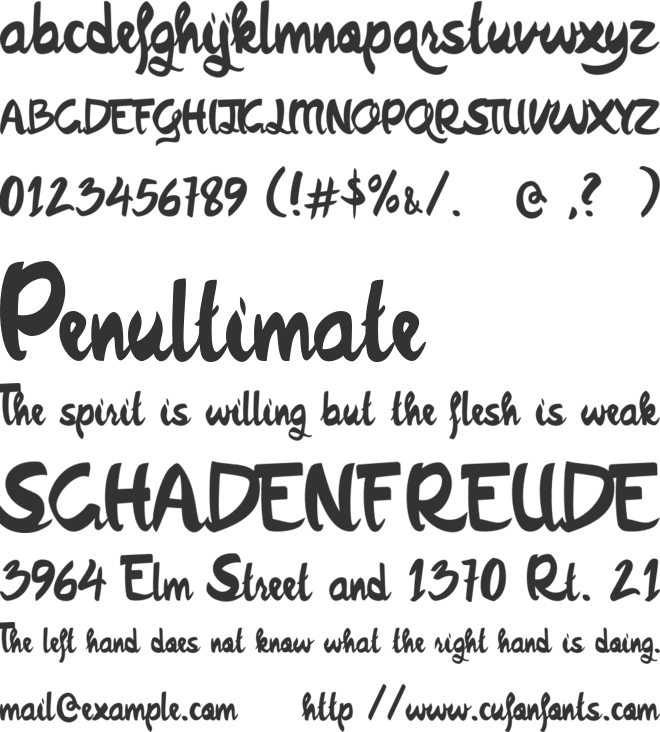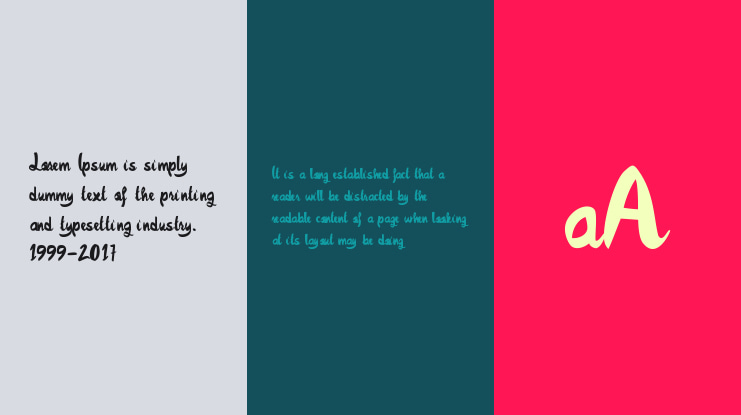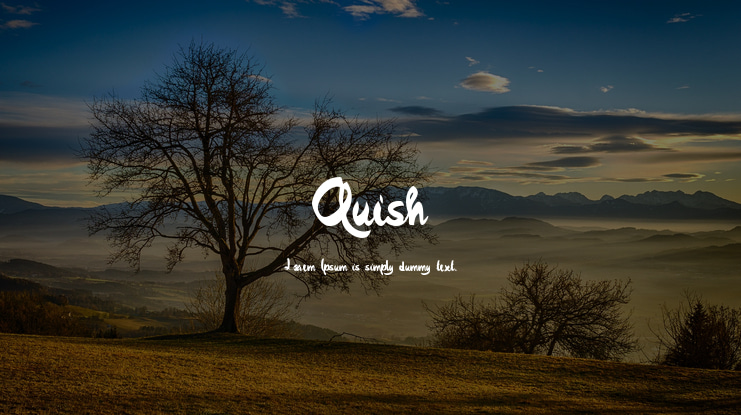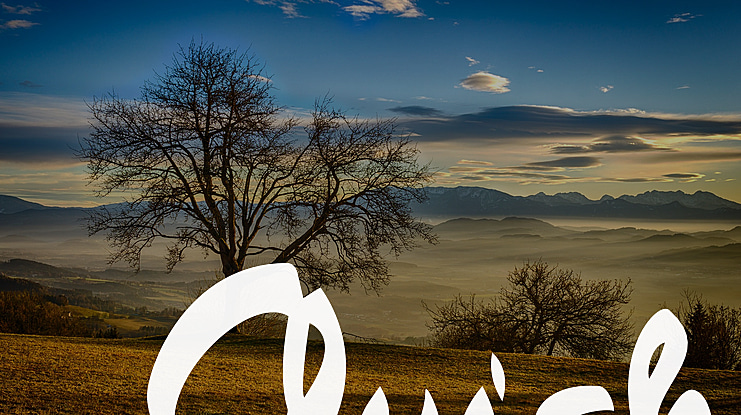
Quish Font
Quish is a handwritten display typeface, designed with a brush and rough styling in some of the letters. It looks like a combination of Style Street and Script. The freehand and imperfect flow of the font gives it the natural looks.